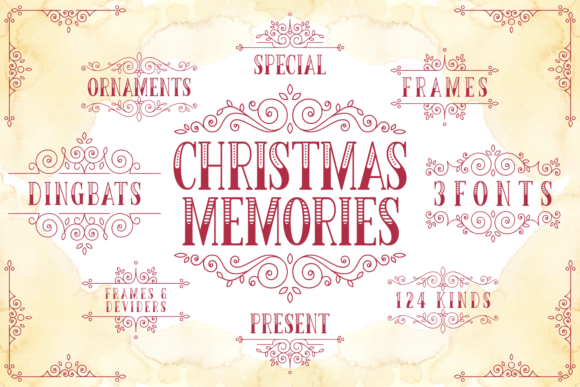
Introducing Christmas Memories Font, the perfect font style for adding a touch of magic to your Christmas projects! Created by the talented Kelik from 7NTypes, this beautiful display font is sure to captivate and inspire.
With its unique and eye-catching style, Christmas Memories Font is the ultimate choice for anyone looking to elevate their festive designs. Whether you're creating holiday cards, invitations, or even crafting personalized gifts, this font will make your creations stand out from the crowd.
One of the standout features of Christmas Memories Font is the inclusion of two different kinds of dingbats. These delightful additions will bring a touch of whimsy and charm to your designs, making them even more memorable and special. Let your creativity run wild as you incorporate these unique elements into your Christmas projects.
Exclusively available on Creative Fabrica, Christmas Memories Font offers a one-of-a-kind experience. This font is not only visually stunning but also carefully crafted to ensure seamless readability. The characters flow effortlessly, allowing your messages to be conveyed with elegance and clarity.
But what truly sets Christmas Memories Font apart is its ability to evoke emotions. As you browse through the collection of characters, you'll be transported to a world of warmth, joy, and nostalgia. Let the magic of Christmas come alive through every letter and word, as you create designs that will touch the hearts of your audience.